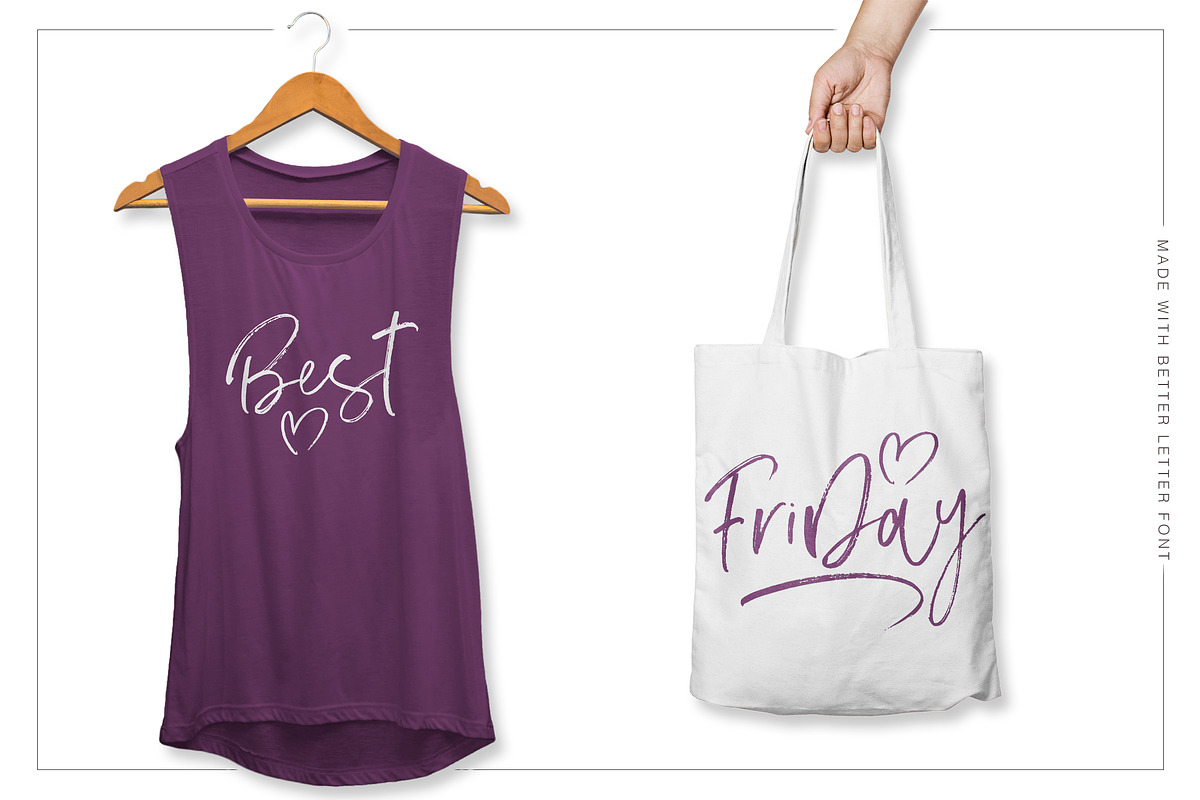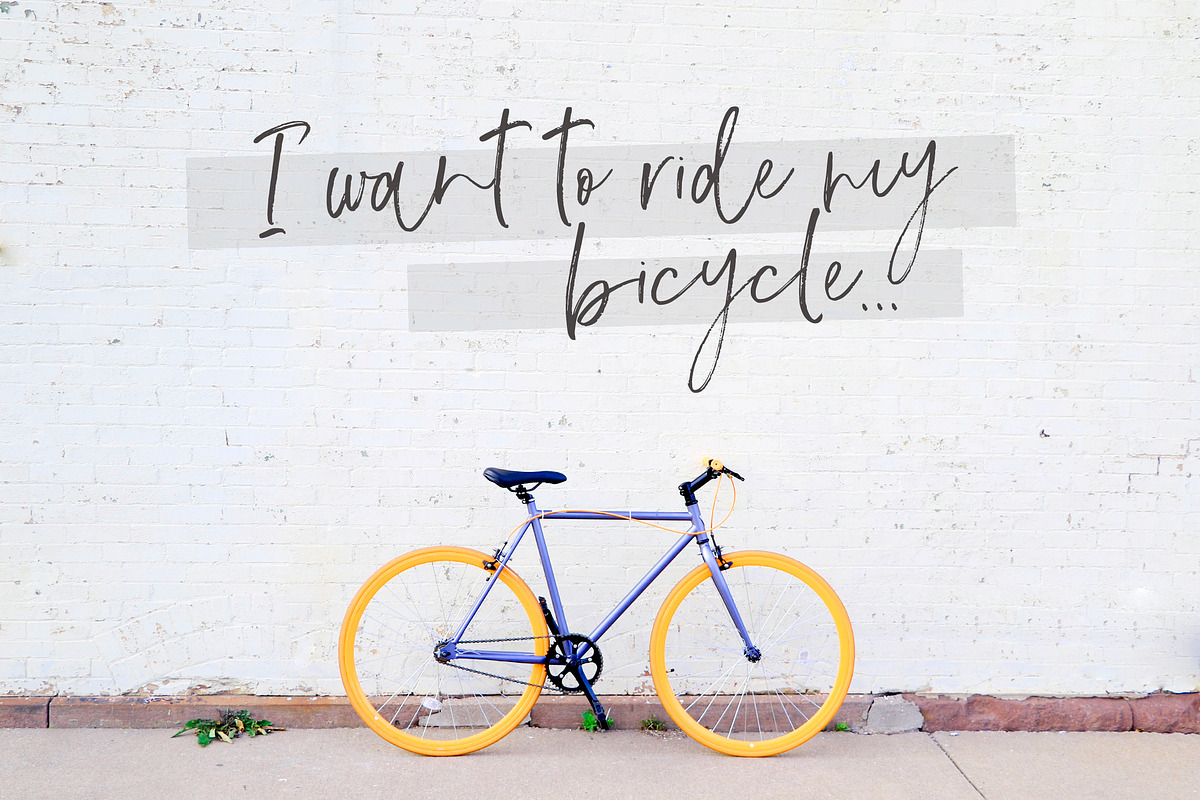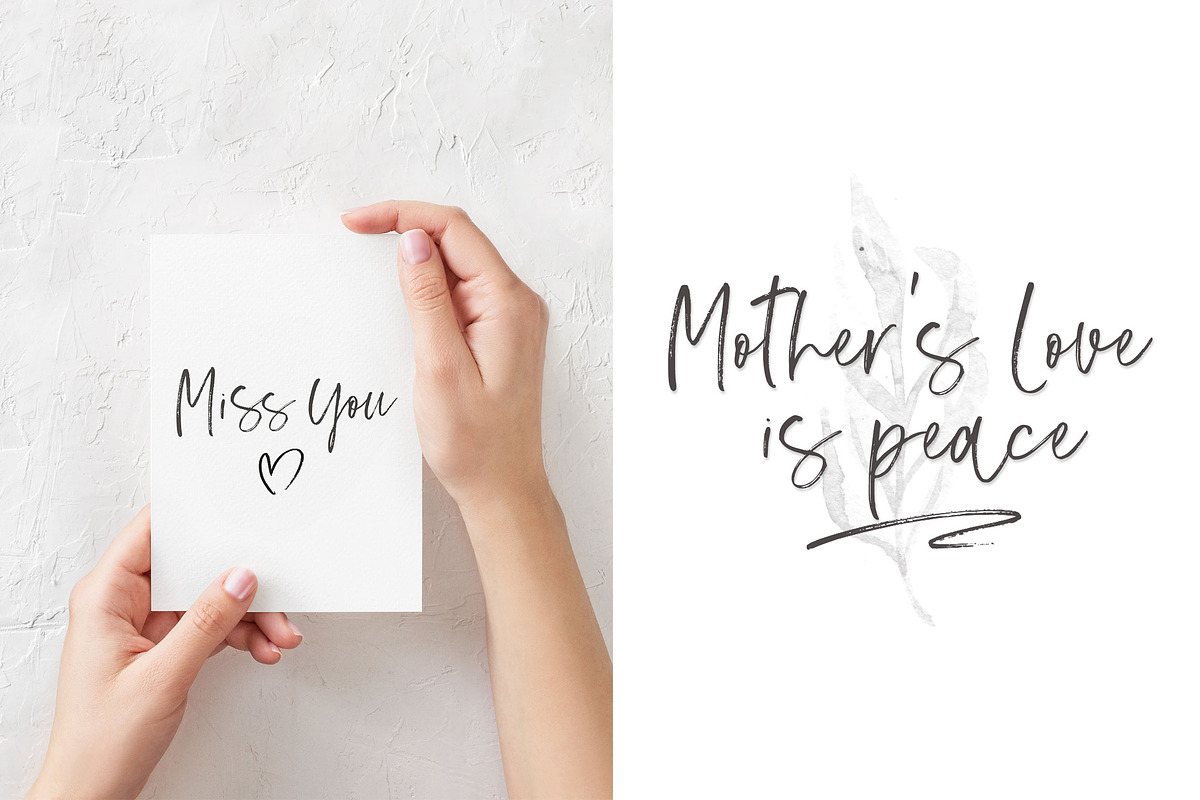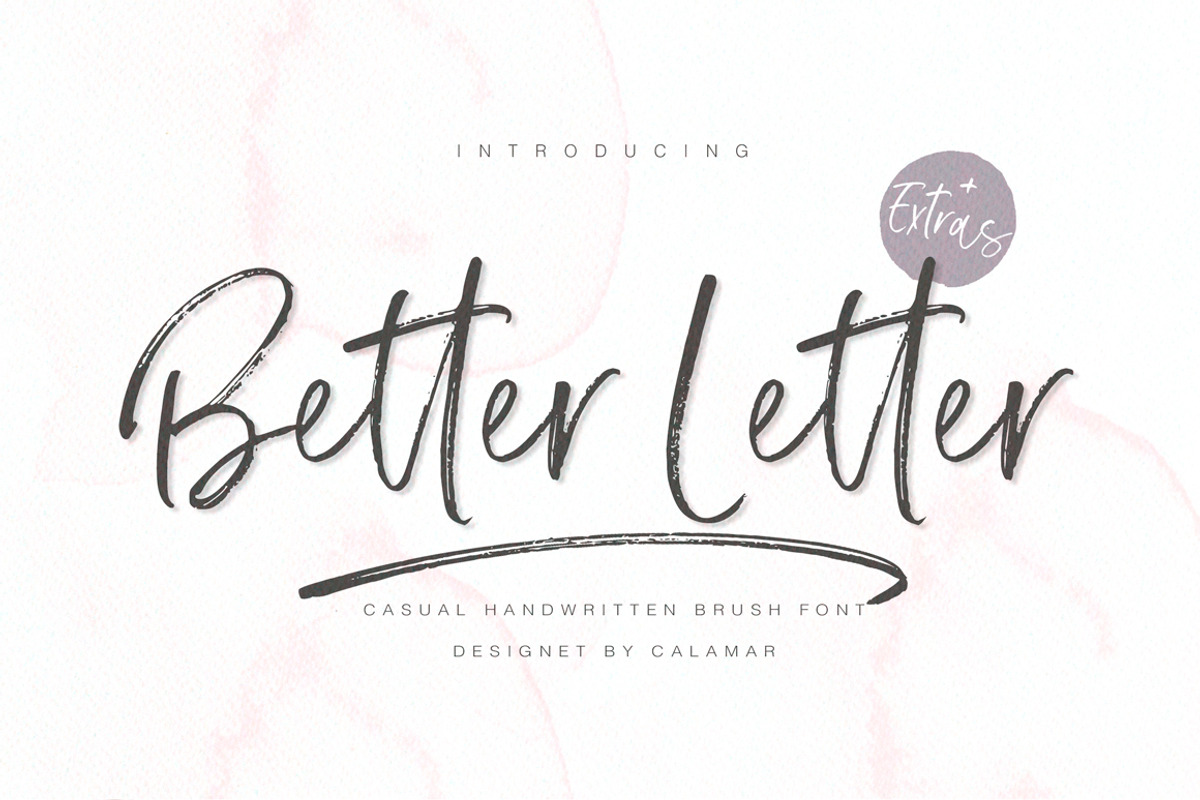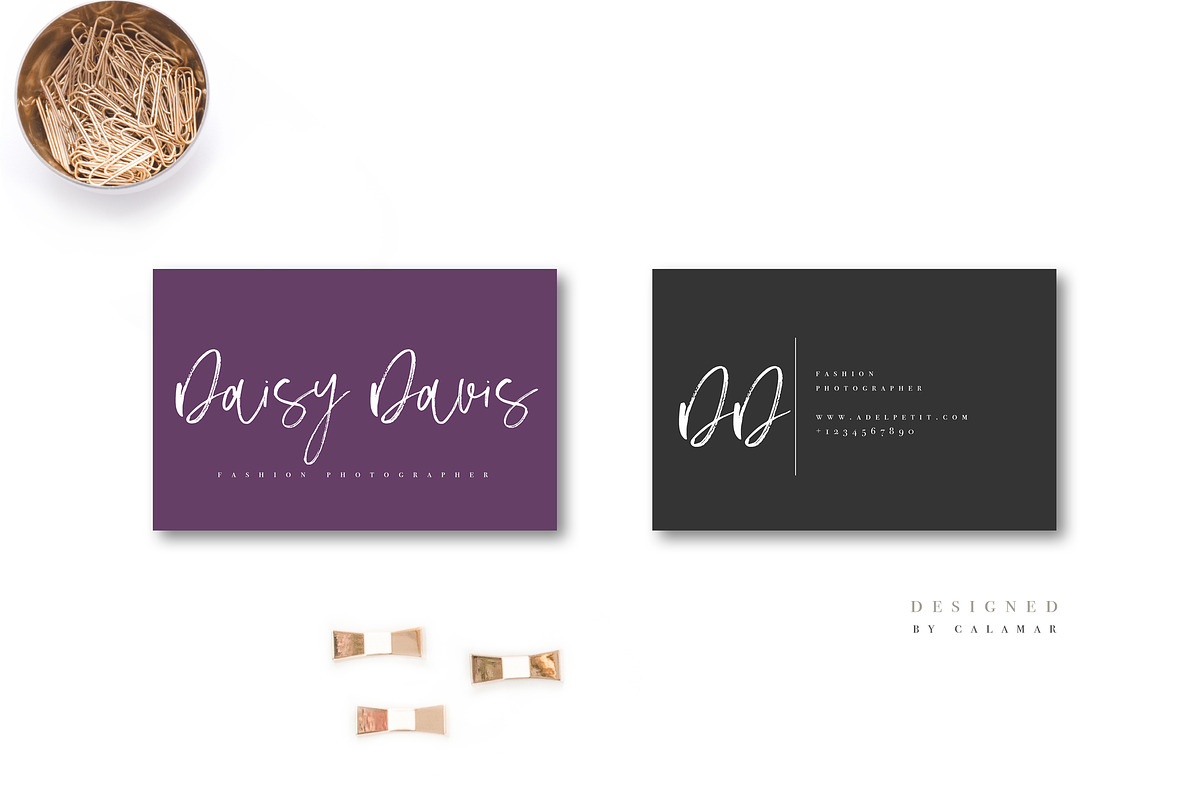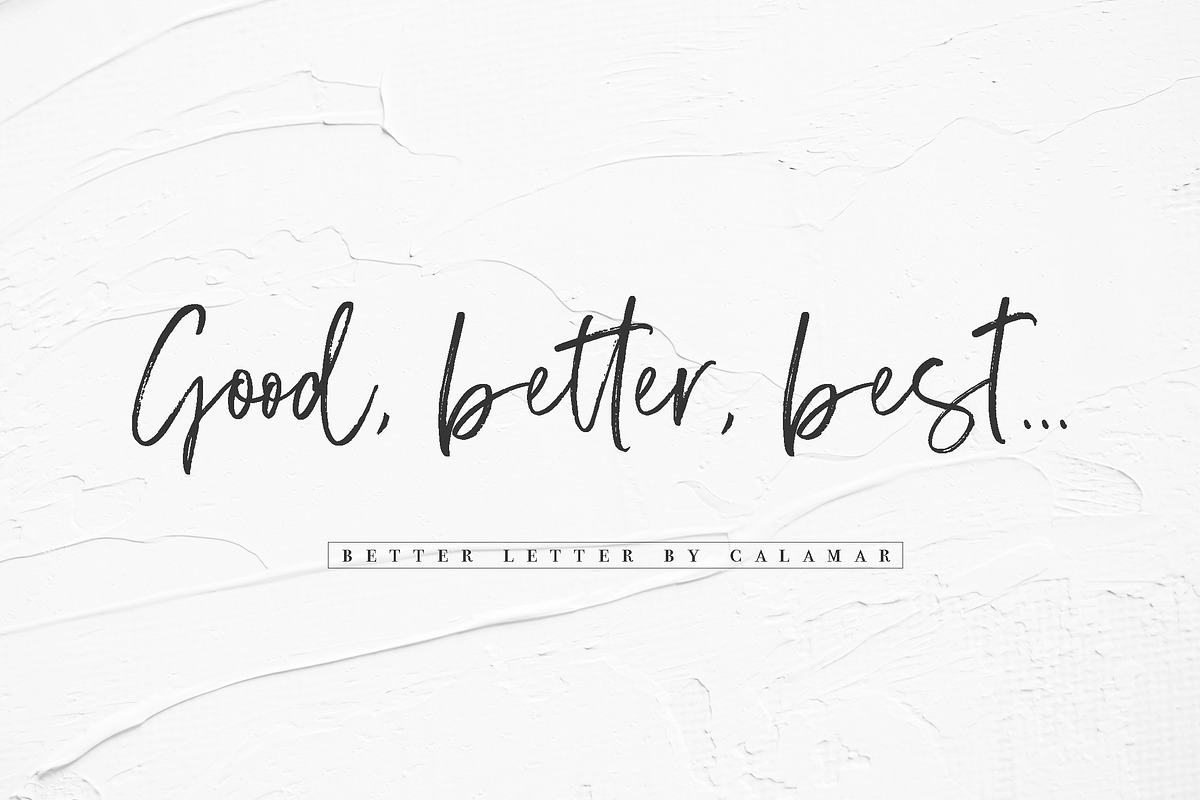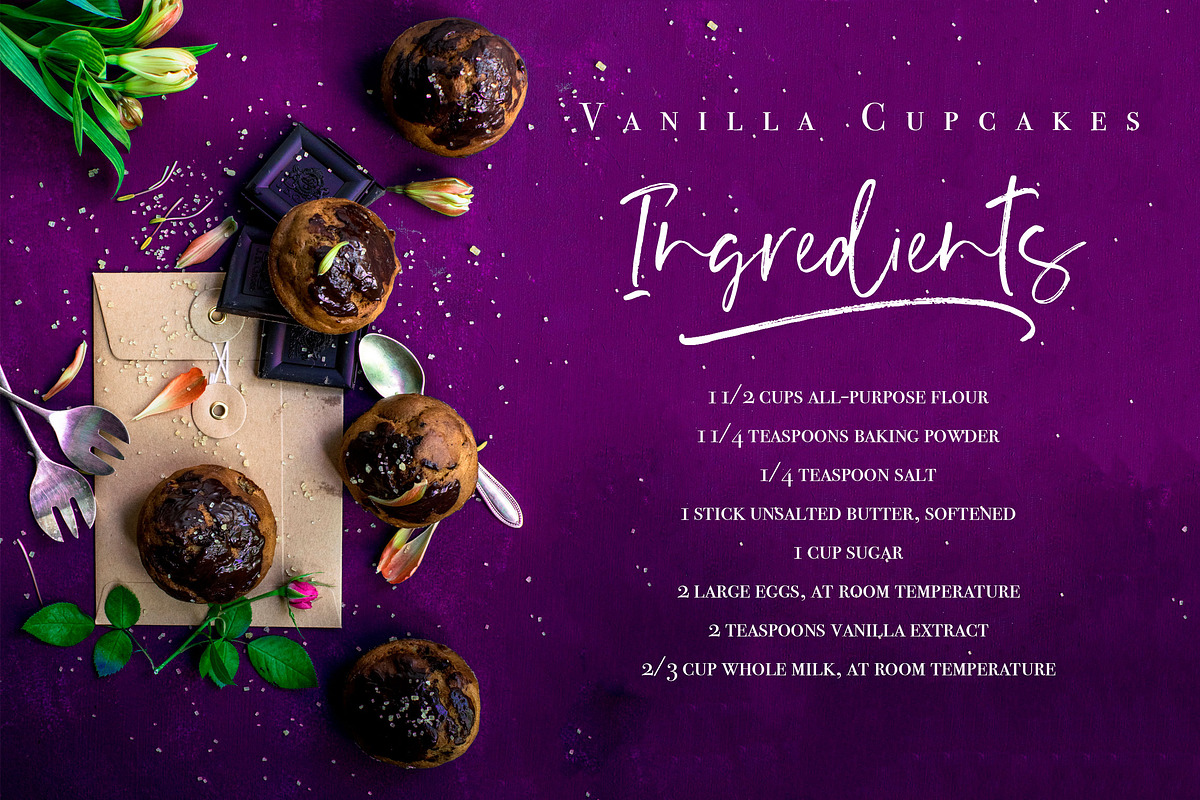
Better Letter Font
Better Letter Font is a hand brushed font created with a brush and ink. It's font with quick dry strokes and dancing baseline. Use it for cards, logos and branding materials, headings, quotes, t-shirt, bags and any other amazing projects you are working on.
Better Letter Font includes Upper and Lowercase Basic Characters, Numbers and Punctuation. Open Type Features include standard and discretionary ligatures.
Extra Font includes 26 handdrawn shapes and swashes which you can type out using the characters a-z, A-Z.